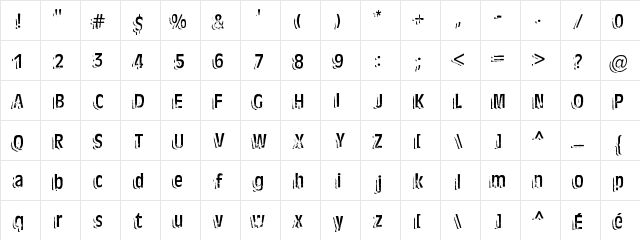
Ten Ton Ballyhoo Regular
| Designer | S. John Ross |
Design Context for Ten Ton Ballyhoo Typeface
Ten Ton Ballyhoo is a composed and adaptable typeface that performs quietly and consistently across a wide range of design contexts.